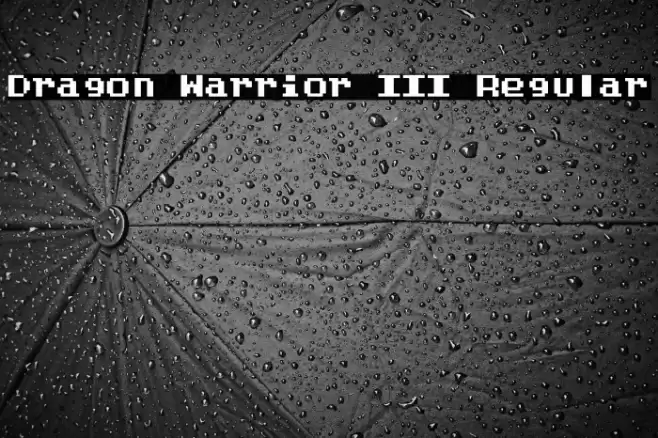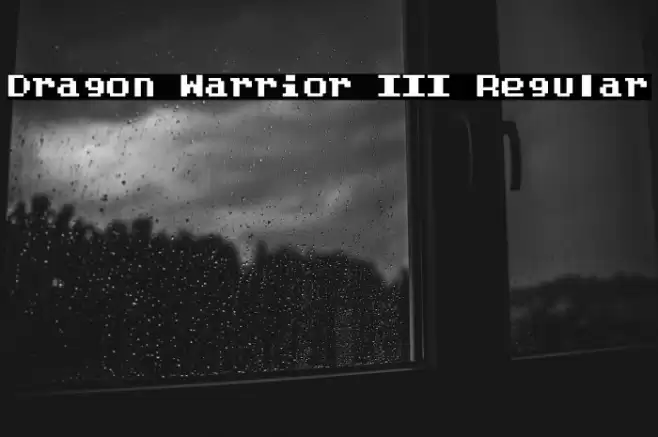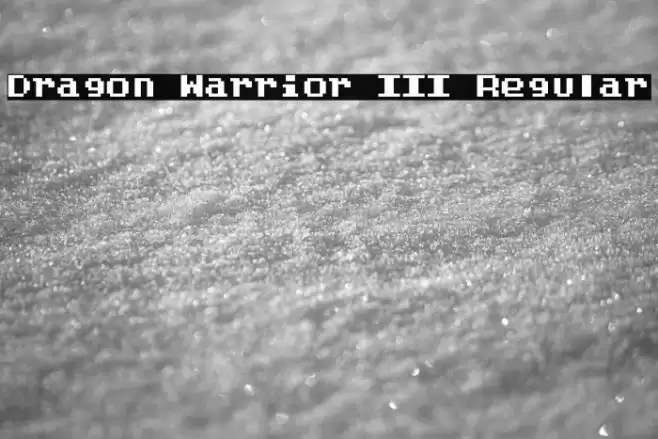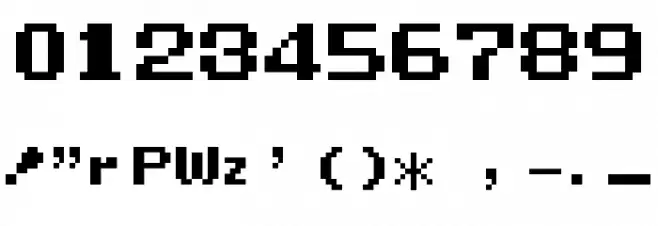
Dragon Warrior III Regular Font
Dragon Warrior III Regular Description
This font features a bold, pixelated design reminiscent of classic video game aesthetics. Each character is constructed with a blocky, grid-like appearance, giving it a retro, digital feel. The uppercase and lowercase letters maintain a consistent width, contributing to a uniform look. Numbers and special characters follow the same pixelated style, ensuring cohesion across all elements. The font's simplicity and geometric structure make it highly legible, even at smaller sizes. Its nostalgic charm is ideal for projects that aim to evoke a sense of vintage gaming or digital nostalgia.
A bold, pixelated font with a retro video game aesthetic from Regular fonts.
- Proposed Projects: Ideal for retro video game designs, digital art projects, and nostalgic branding.
- Overall Style: Vintage
- Use Case: Headlines, Logos, Digital Art